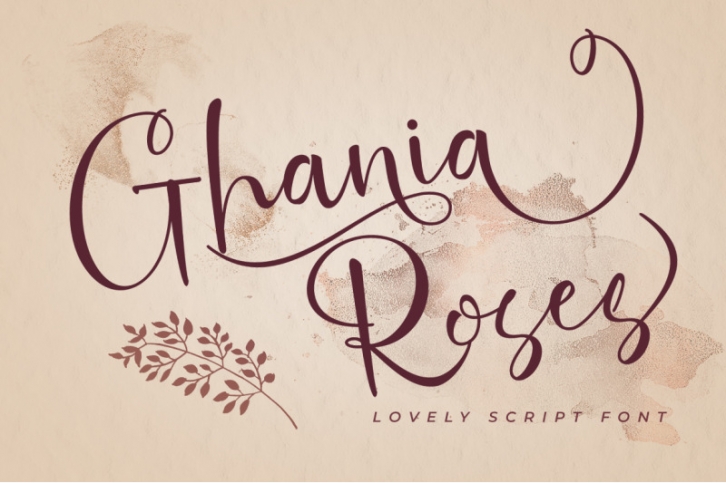
Ghania Roses Script is a lovely script that bring luxury feel.
Ghania Roses comes with 460+ glyphs, The natural hand writing script is suitable for you who needs a typeface for headline, logotype, apparel,wedding invitations, valentines day,branding, packaging, advertising,watermark, etc.
Ghania Roses was created to look as close to authentic hand lettering as possible. Not only will you find an array of stylized ligatures/alternates, but you’ll have so much fun mixing and matching the upper and lowercase letters to give each word a truly personalized, hand lettered vibe.